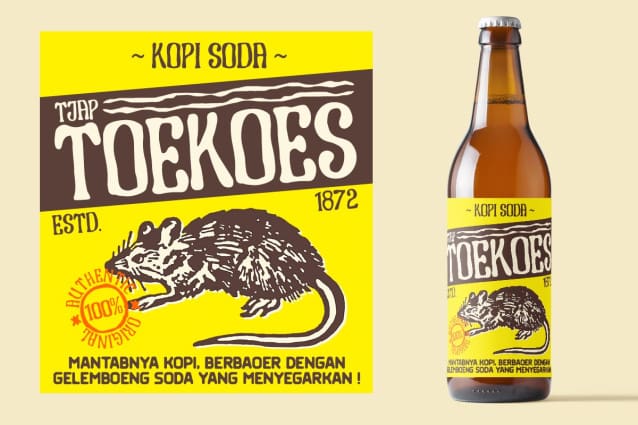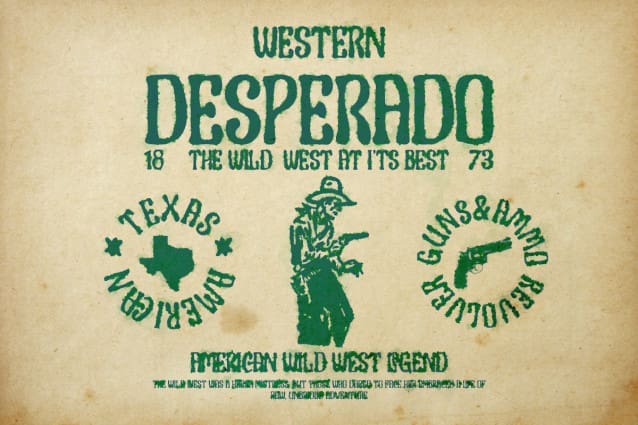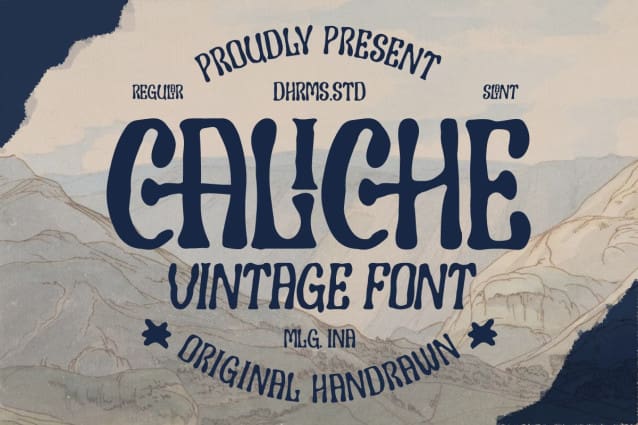
Caliche Vintage Font
Caliche Vintage Font is inspired by the rustic charm of vintage craftsmanship, infused with the laid-back vibes of a tropical summer. This font brings you not one, but two families to choose from: Regular and Slant, offering versatility for your design projects.
Whether you’re aiming for a rugged look, modern vintage aesthetics, or the essence of summer, Caliche Vintage has got you covered. It’s the perfect companion for all your graphic design needs, crafted with care to bring that unique touch to your creations